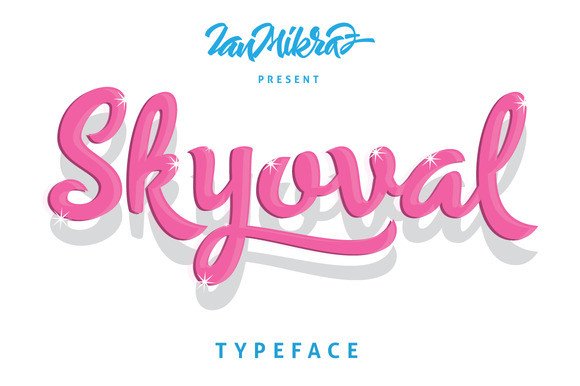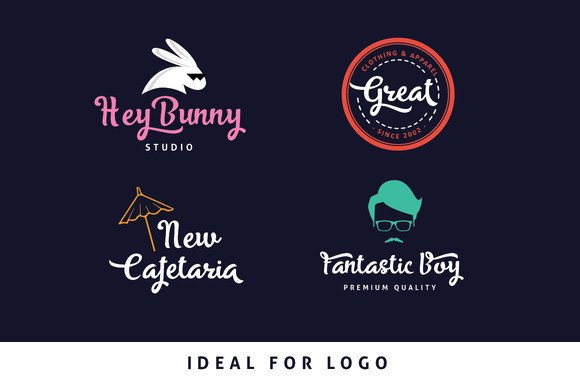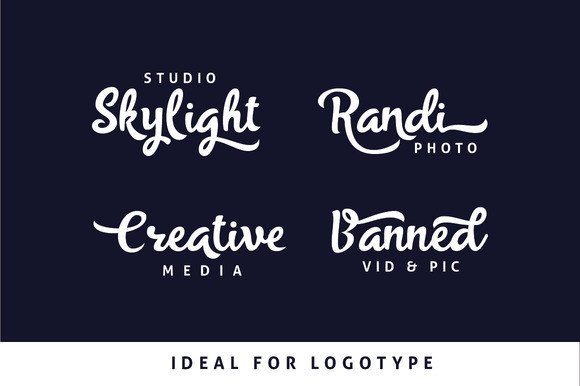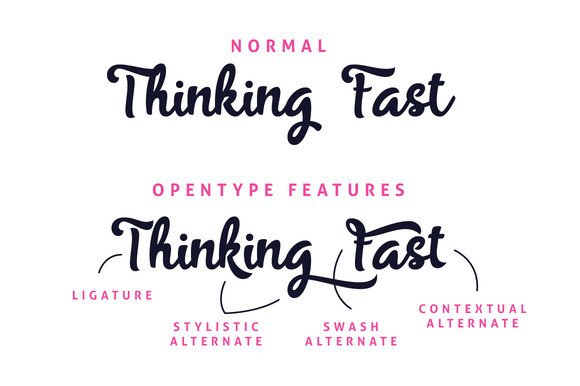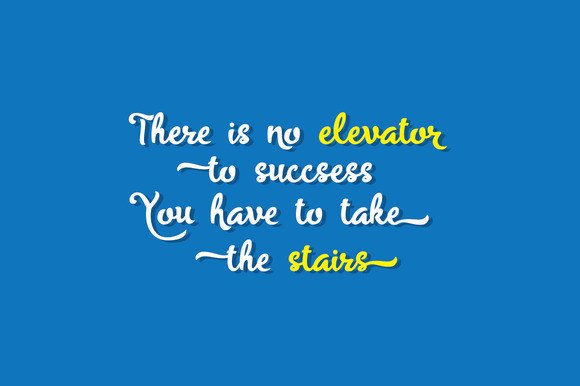
Skyoval Font
About Skyoval Font
Skyoval is a stunning strong handwritten font created by Ian Mikraz.
This font comes packed with stunning glyphs and loads of alternates with start and end swashes. The Skyoval font is PUA encoded and compatible with any application.